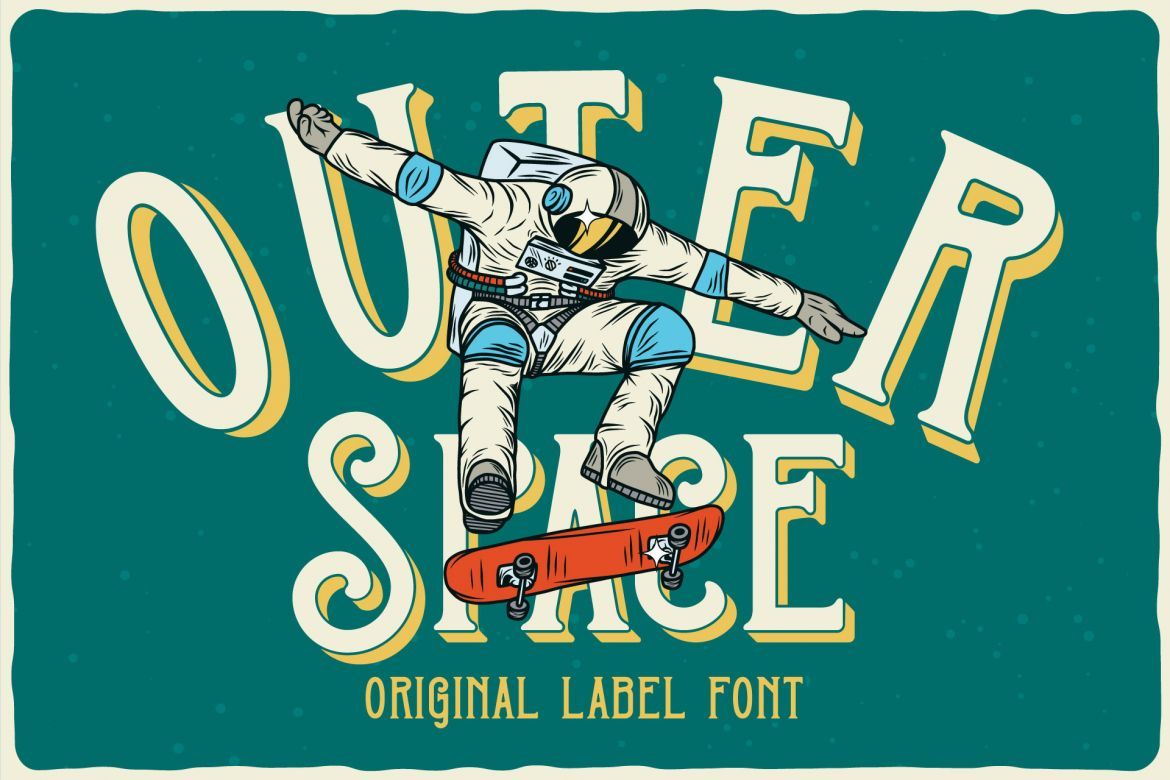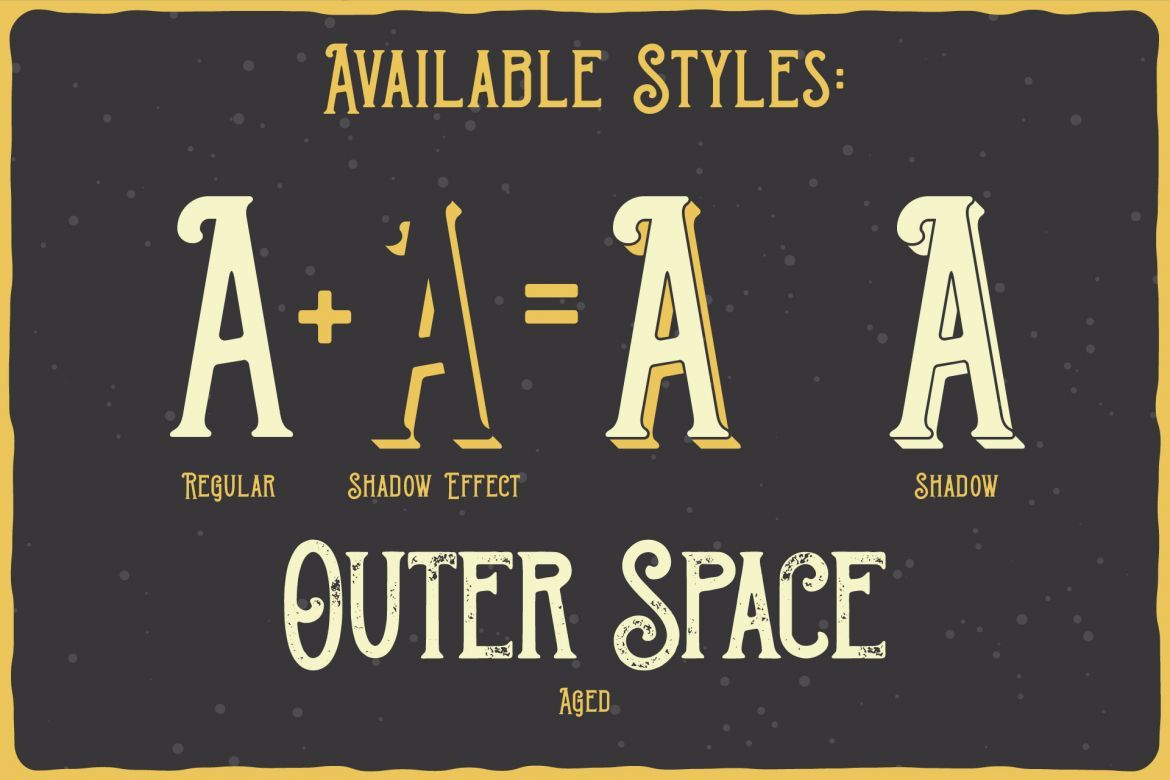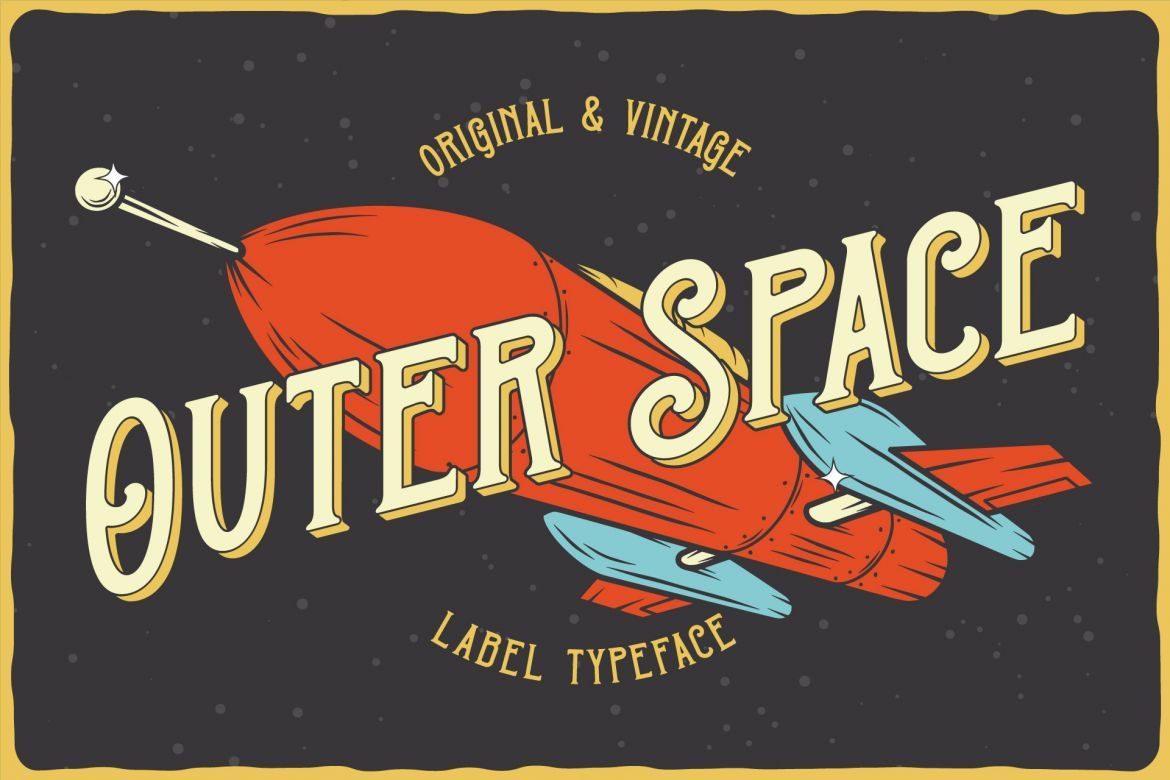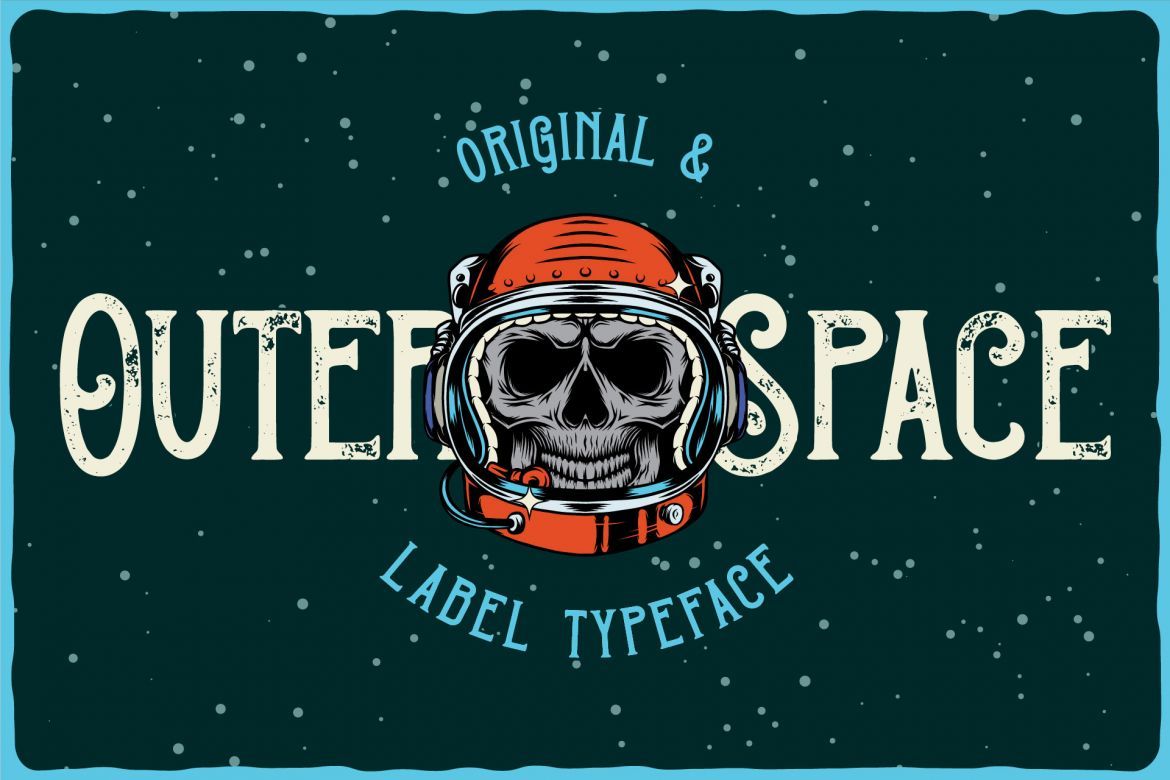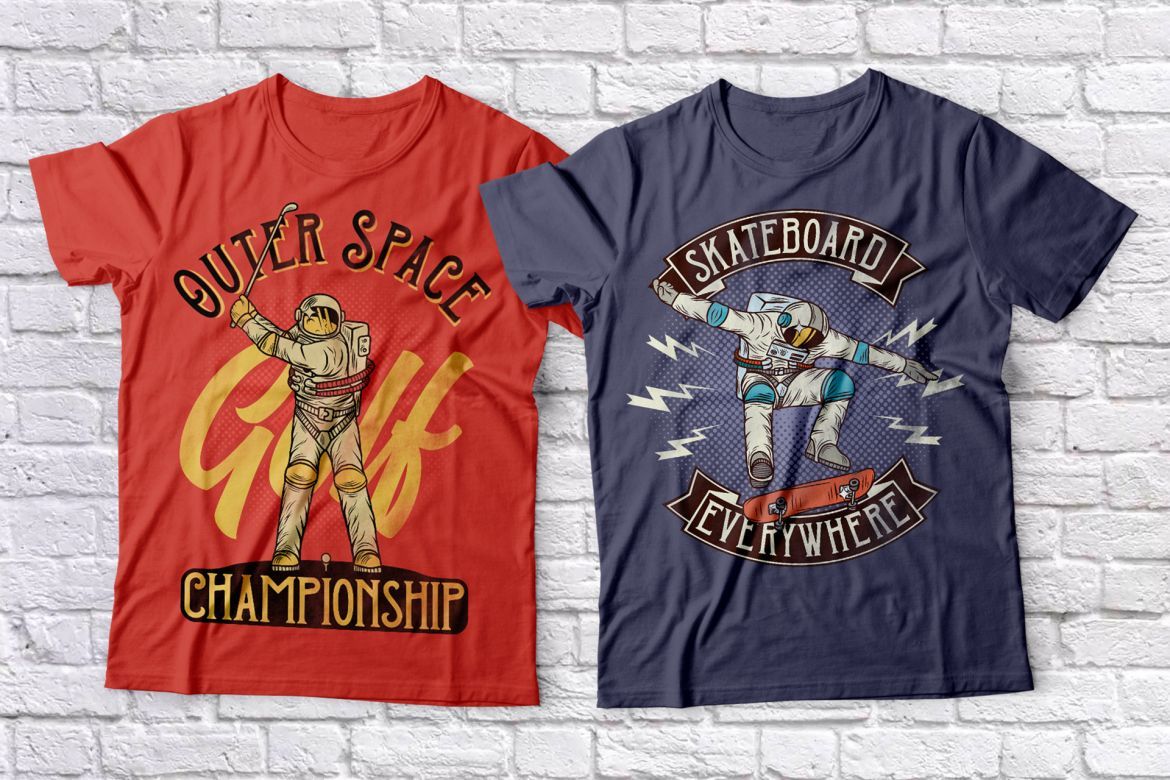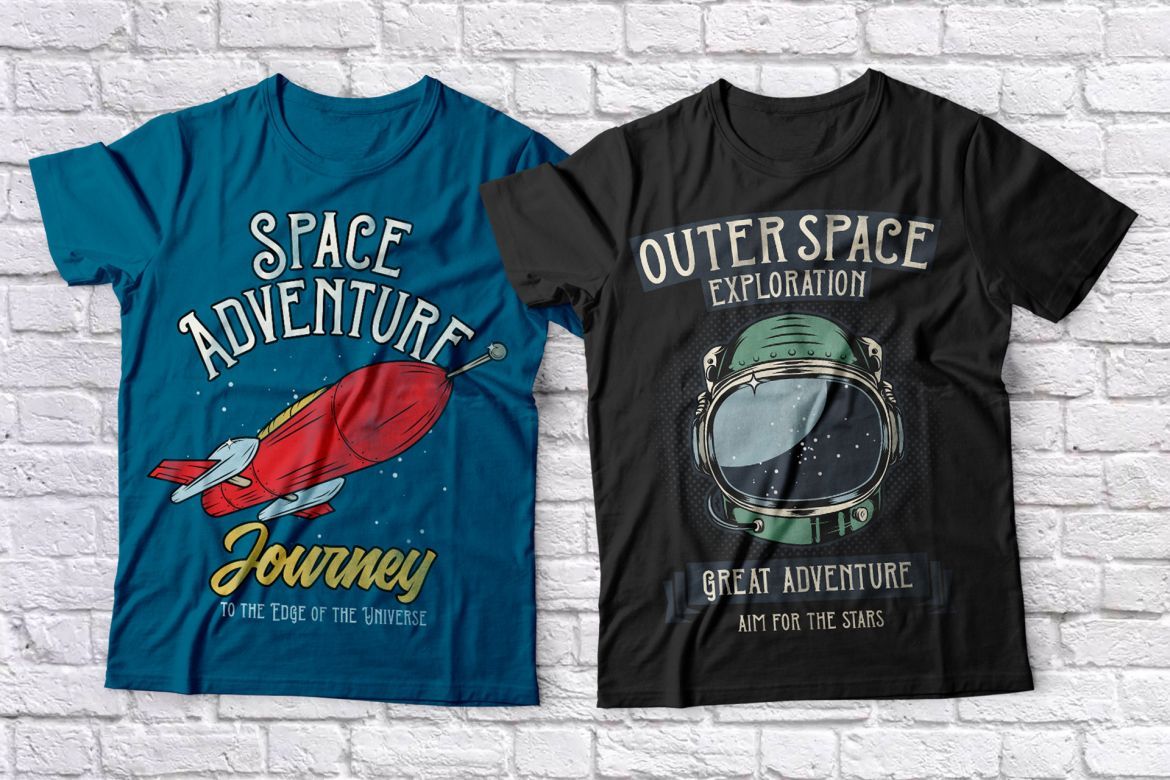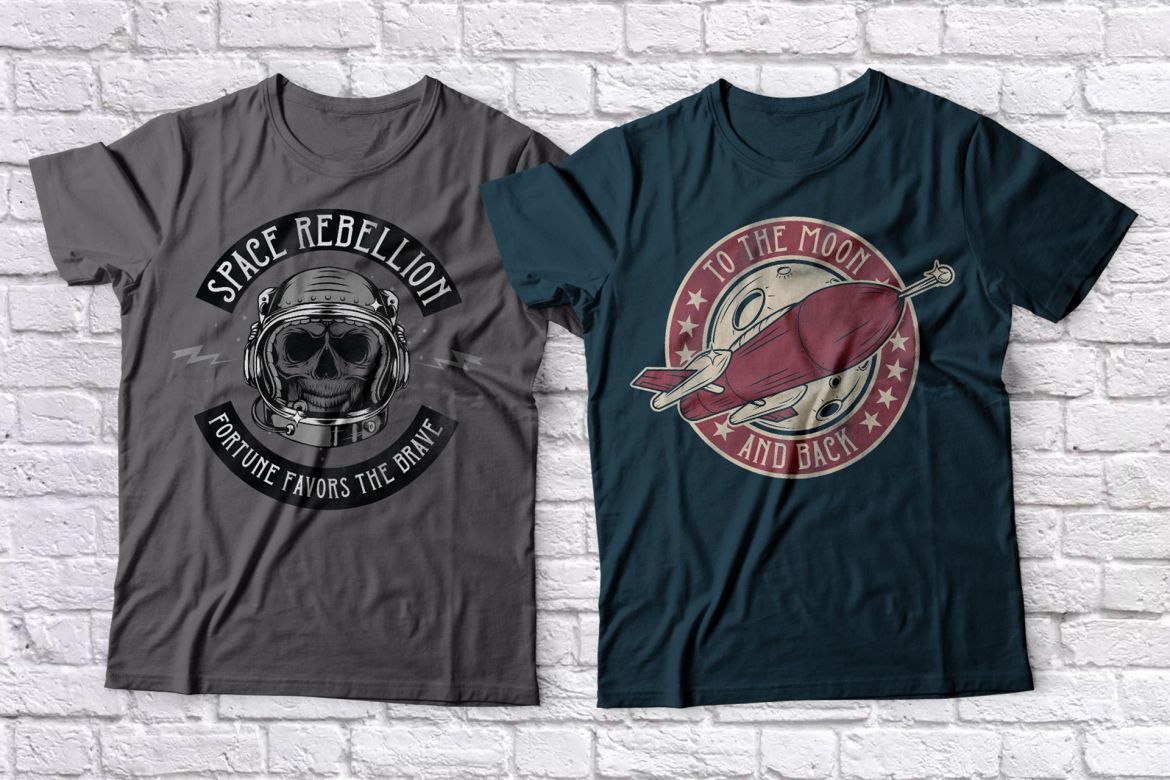
Outer Space Label Typeface
Introducing a vintage look label font named "Outer Space". All available characters you can see at the screenshot. This font have 4 styles (including layered shadow effect style). This font will be good viewed on any retro design like poster, t-shirt, label, logo etc.
• a lot of additional characters and multilingual support